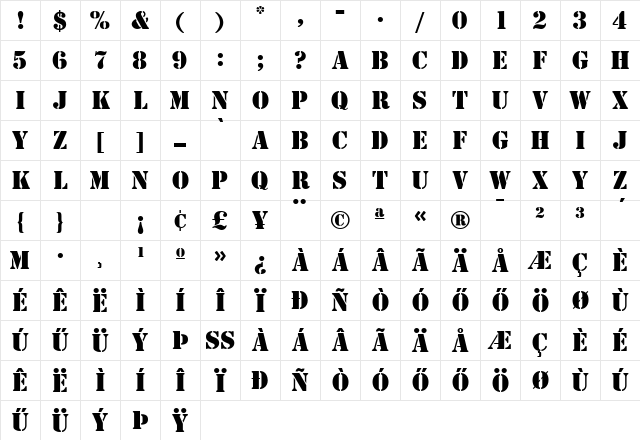
H_Stencil Normal
H_Stencil Family
H_Stencil Normal
Design Context for H_Stencil
H_Stencil borrows the utilitarian aesthetic of stencil lettering, with its characteristic cutaways and no-frills construction lending an industrial edge.
Pro Tip: Use H_Stencil at large sizes on packaging, posters, or apparel where the stencil cutaways read clearly. Avoid small sizes where those gaps become visual noise.